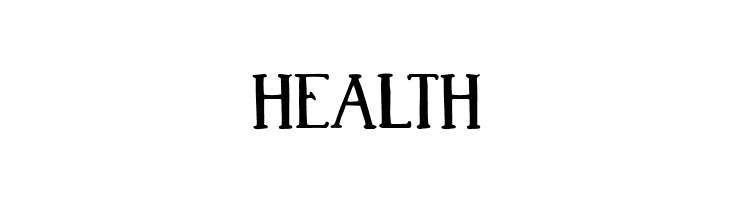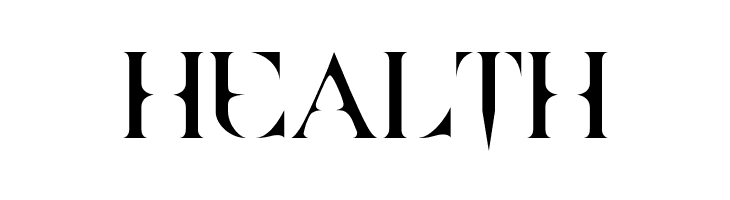
An artistic and modern font with elegant curves and angular cuts.
A bold, jagged font with a horror-inspired, torn appearance.
A futuristic, geometric font with angular and linear design elements.
A bold, geometric font with angular shapes and circular elements, offering a modern and assertive style.
A decorative font with playful circular shapes and dots, offering a whimsical and abstract style.
A decorative, abstract font with geometric and tribal-inspired designs.
A bold, geometric font with Art Deco influences and strong visual impact.
An elegant and ornate script font with flowing, decorative letterforms.
A bold, decorative font with intricate patterns and playful design.
A bold, artistic font with circular and angular elements, perfect for creative designs.
A bold, geometric font with angular shapes and a futuristic style.
A playful, sun-themed decorative font with bold, blocky characters.
A bold, geometric stencil-like font with strong, angular lines.
A bold, geometric font with sharp angles and smooth curves for a modern look.
A bold, high-contrast font with a modern and unique design.
A bold, condensed font with a modern, geometric style.
A bold, angular font with sharp, geometric shapes and dynamic energy.